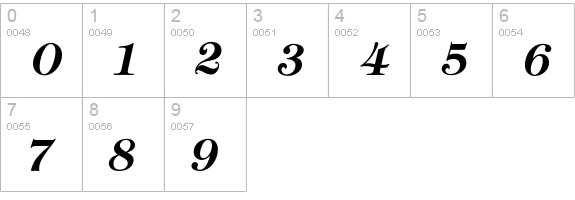
TiffanyDemiItalic Font Details
Introducing TiffanyDemiItalic, a stunning and sophisticated font that exudes elegance and grace. This font is the perfect choice for those seeking a touch of refined beauty in their designs. With its slanted and graceful letterforms, TiffanyDemiItalic creates a sense of luxuriousness and sophistication. What sets TiffanyDemiItalic apart is not only its exquisite design but also its versatility. Whether you're designing wedding invitations, elegant branding materials, or creating stunning logos, this font will effortlessly elevate your projects to new heights of sophistication. But what makes TiffanyDemiItalic even more remarkable is that it is freely available to download at FontsMarket.com. Yes, you read that right! You can now enhance your designs with this exquisite font without any restrictions. This means that you can use TiffanyDemiItalic in both personal and commercial projects, without worrying about any licensing limitations. Immerse yourself in the world of luxury and elegance with TiffanyDemiItalic. Its fluid and graceful curves will captivate your audience and leave a lasting impression. Whether you're a professional designer or a creative enthusiast, this font is a must-have in your collection. So don't wait any longer. Visit FontsMarket.com today and download TiffanyDemiItalic for free. Elevate your designs, showcase your creativity, and let the timeless beauty of this font speak for itself.